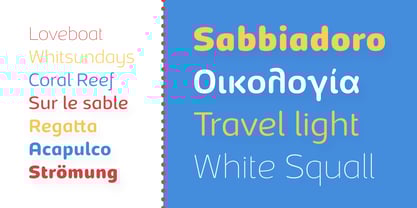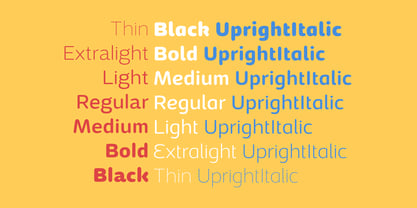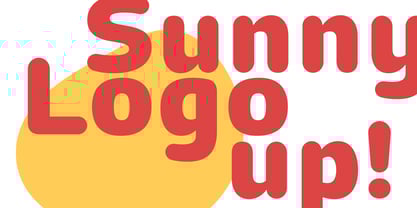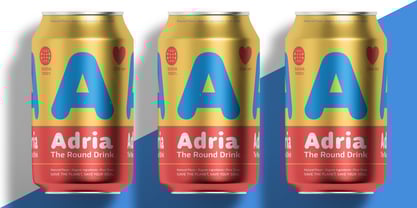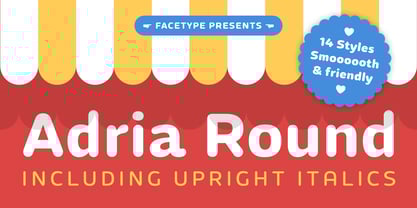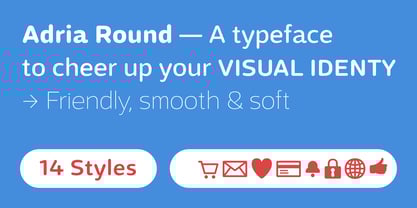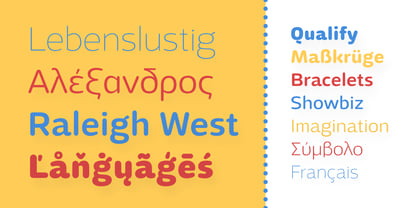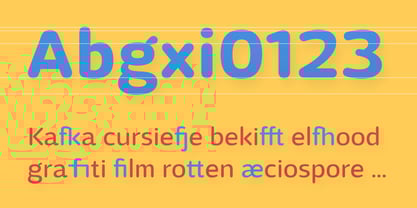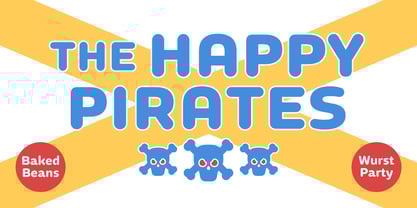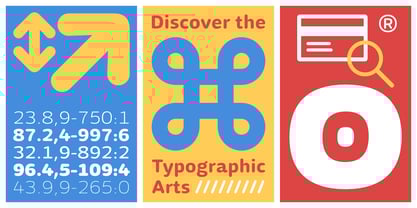
Adria Round
by FaceType
The Adria Round Font Family was designed by Marcus Sterz and published by FaceType. Adria Round contains 14 styles and family package options.
‘Adria Round’ is a friendly, rounded humanist typeface that comes in 7 carefully crafted weights and charming upright italics. You will find a fine choice of lining, tabular and old style figures, numerators, denominators, tabular figures, fractions, ligatures, a bunch of useful symbols and even alternate arrows. Adria Round is the latest addition to the Adria Superfamily.
Adria Round